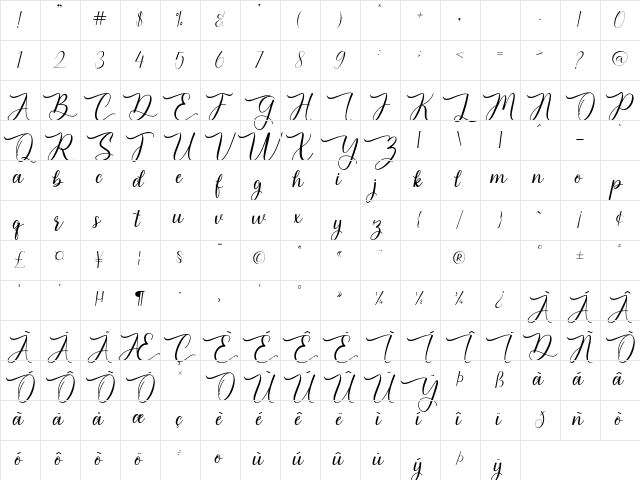
Margetha Regular
| Designer | (MJB Letters). 2020. (Muhammad Mujibulloh) |
Design Context for Margetha Typeface
Margetha is a composed and adaptable typeface that performs quietly and consistently across a wide range of design contexts.